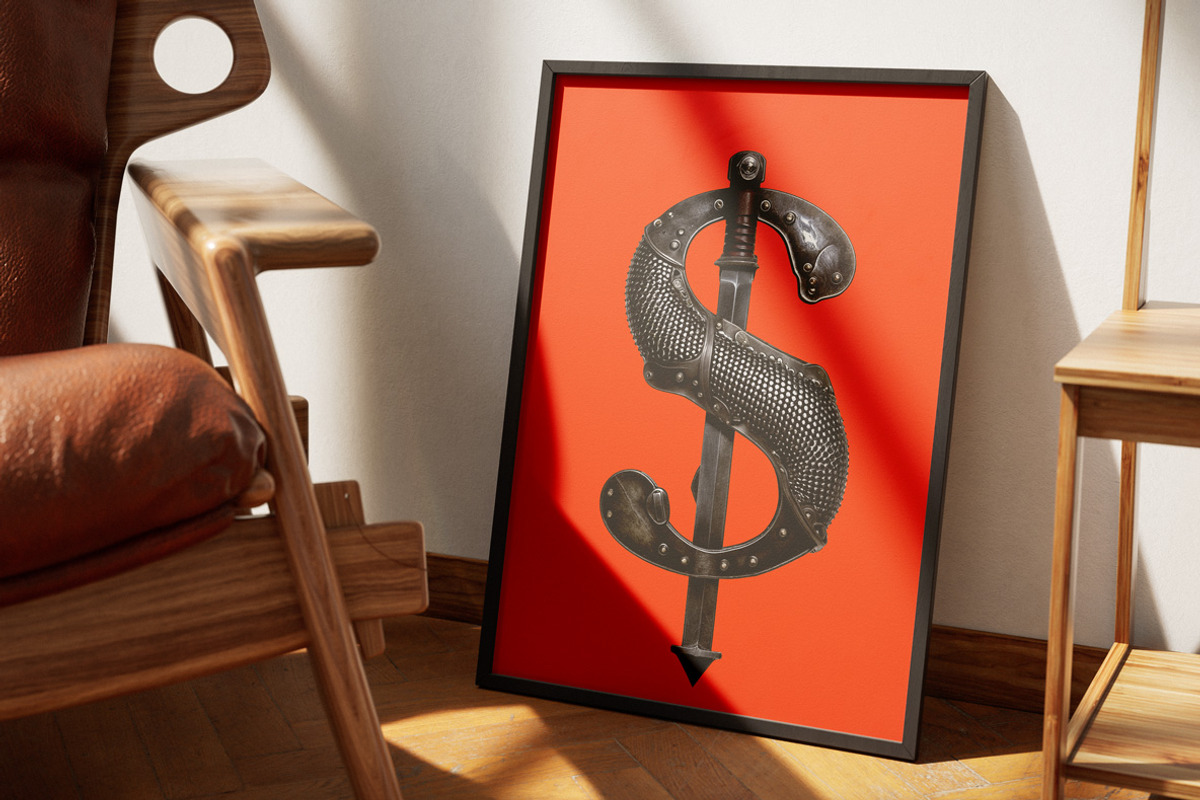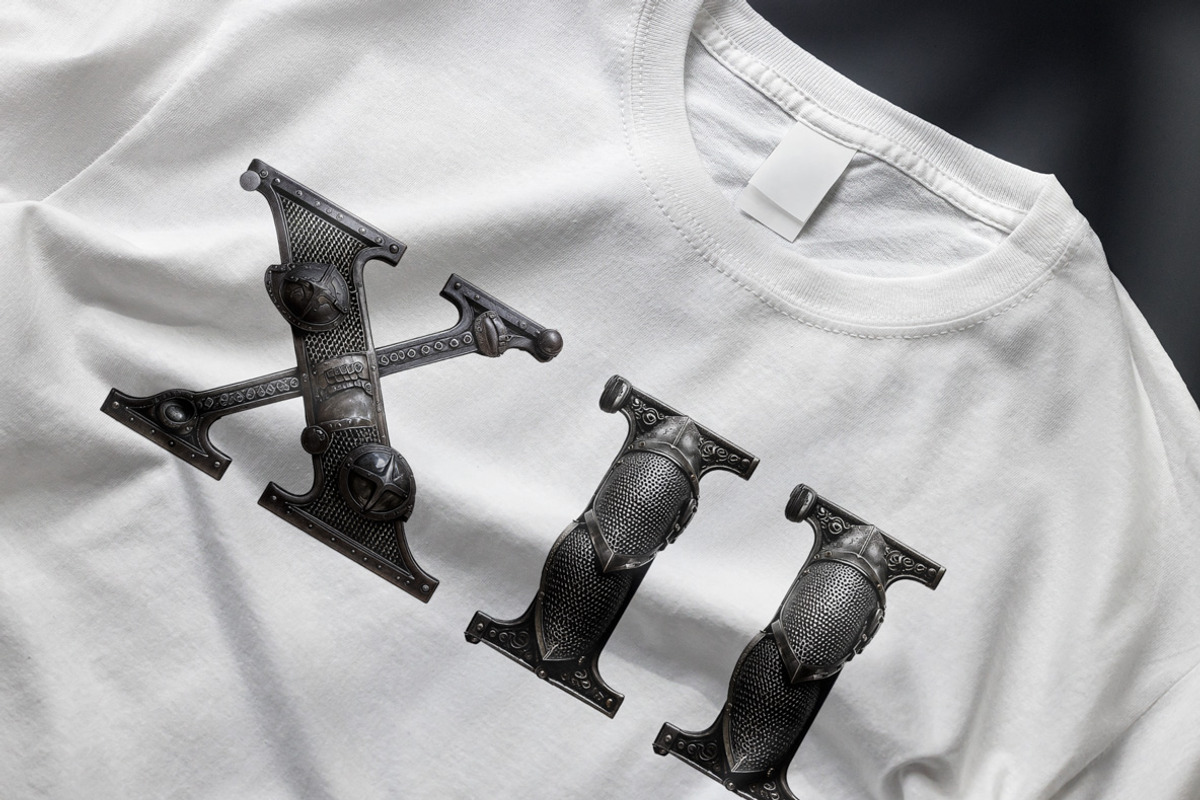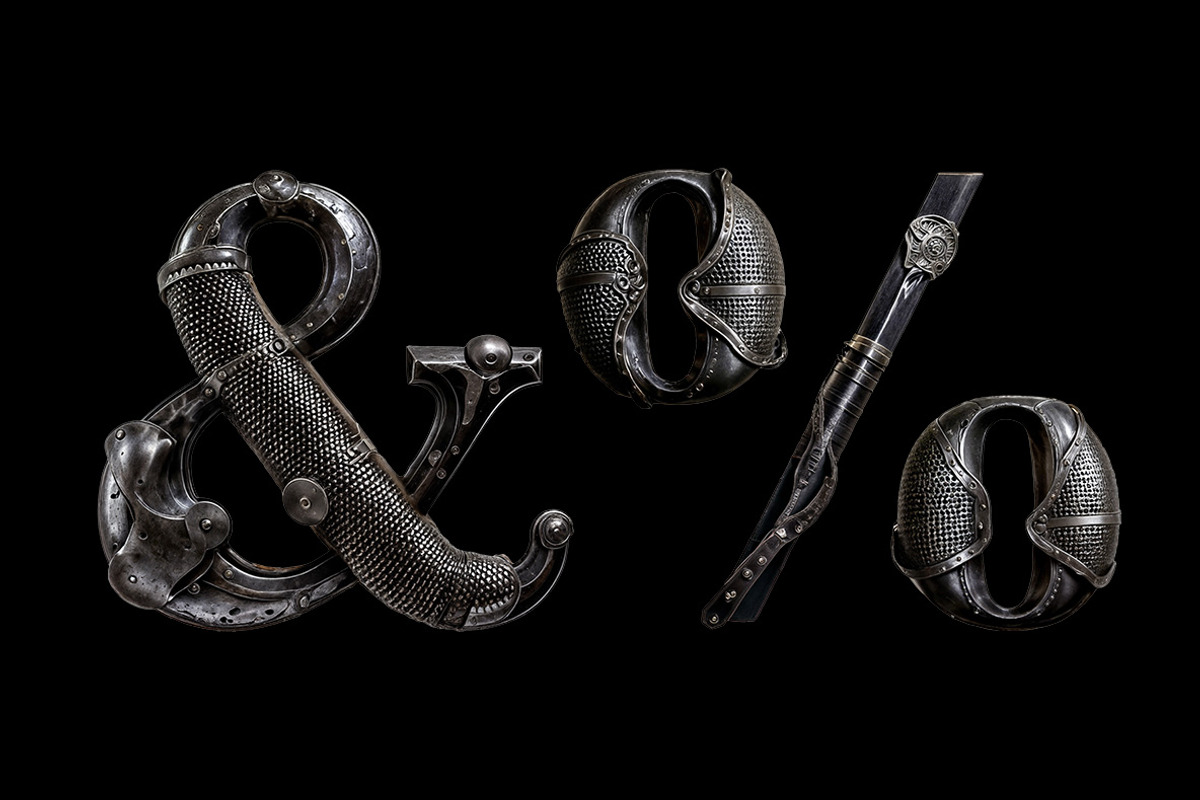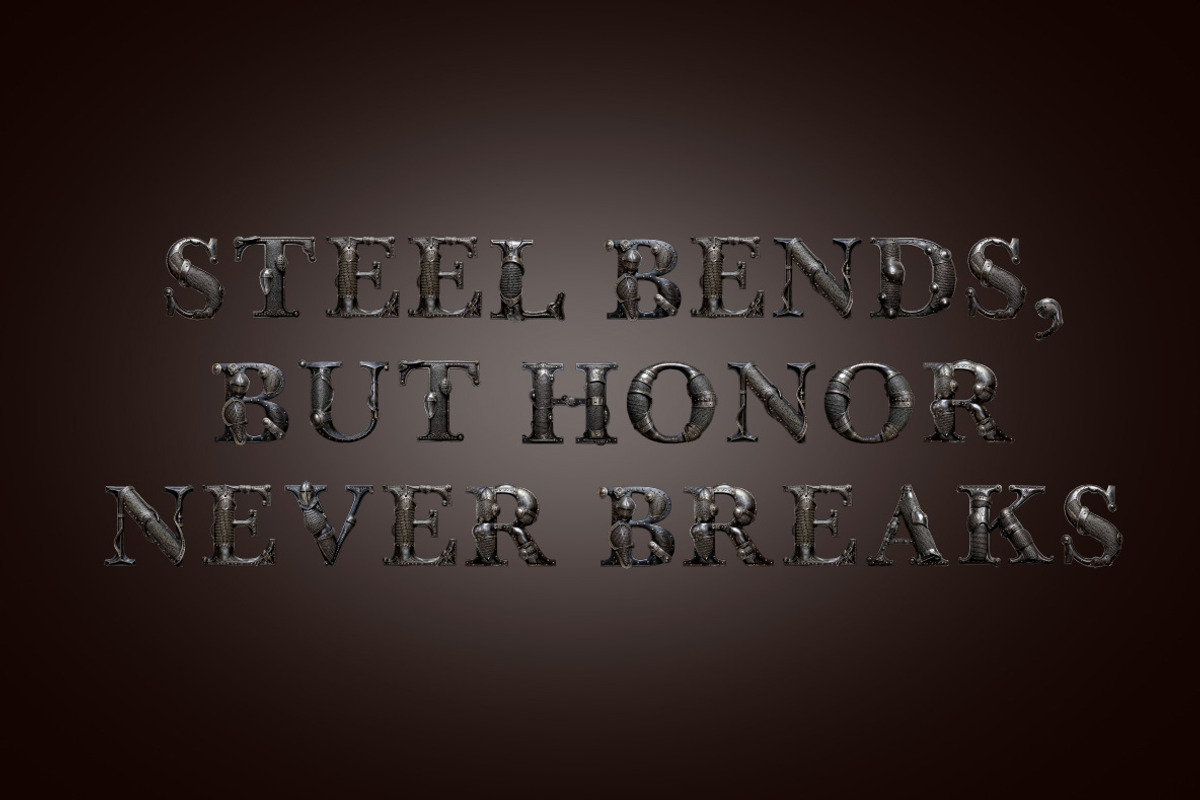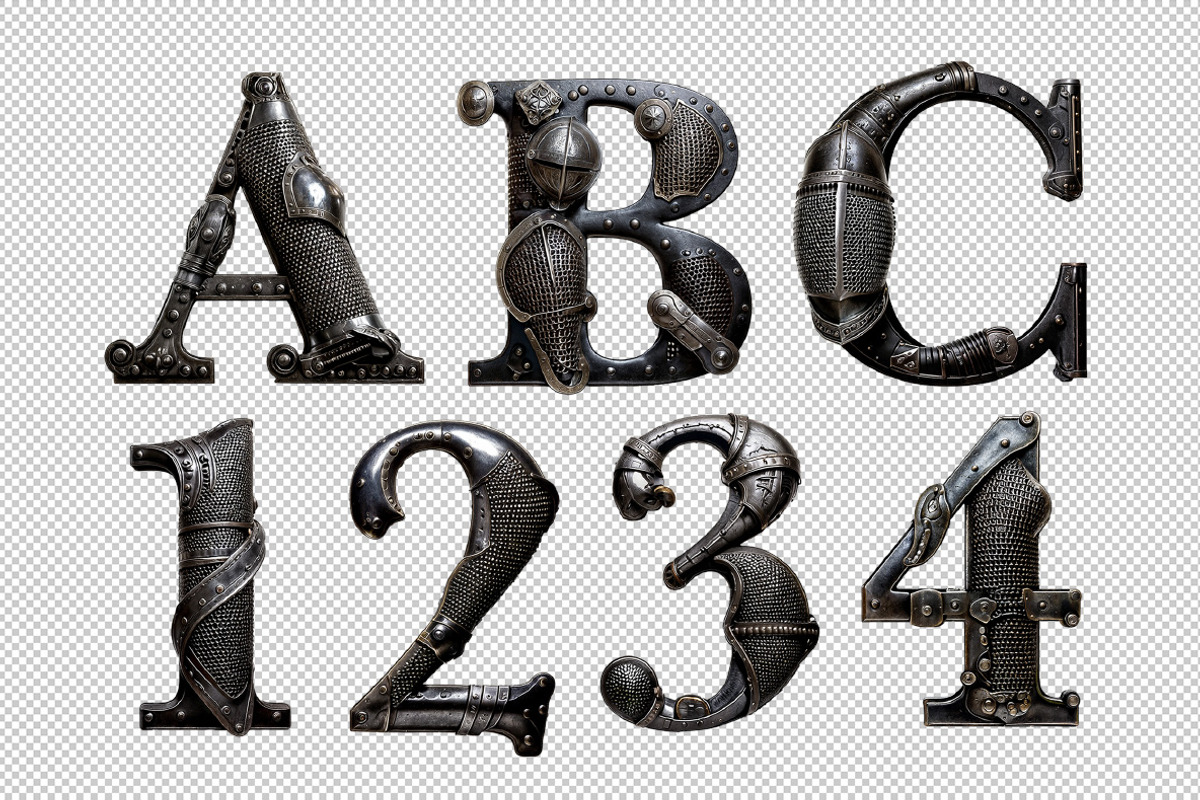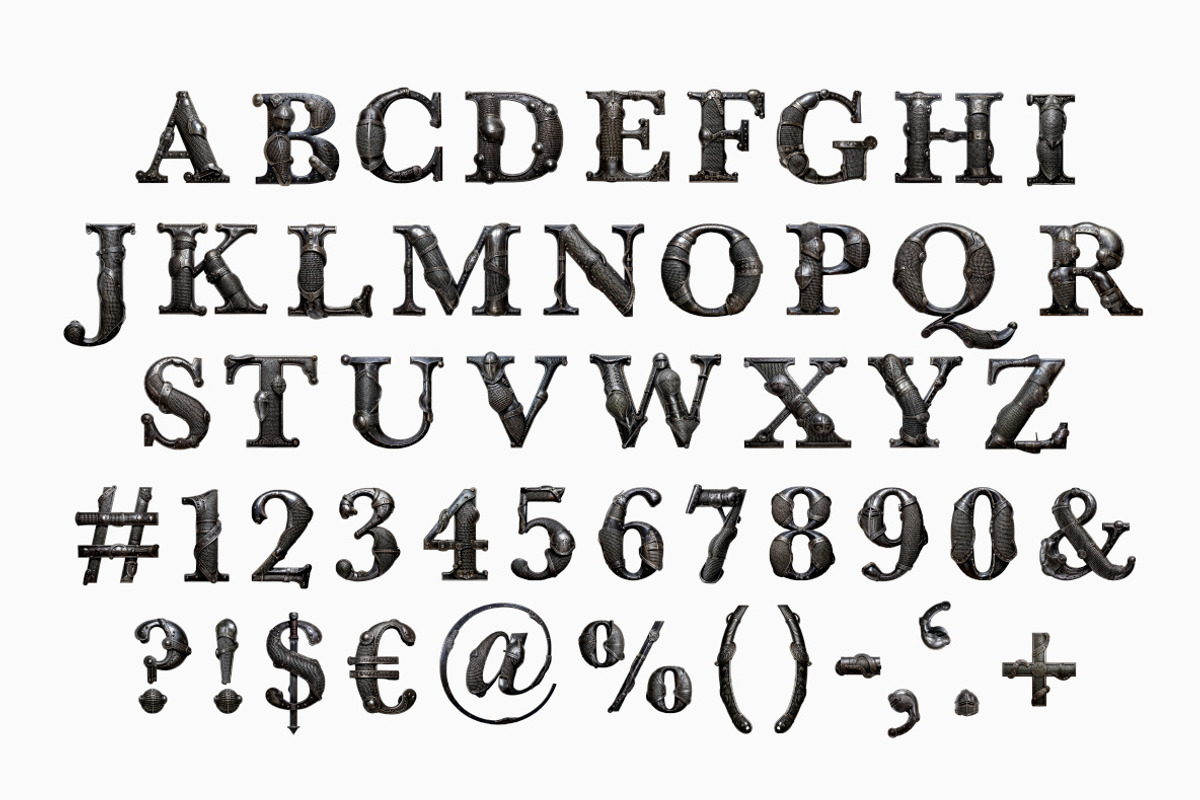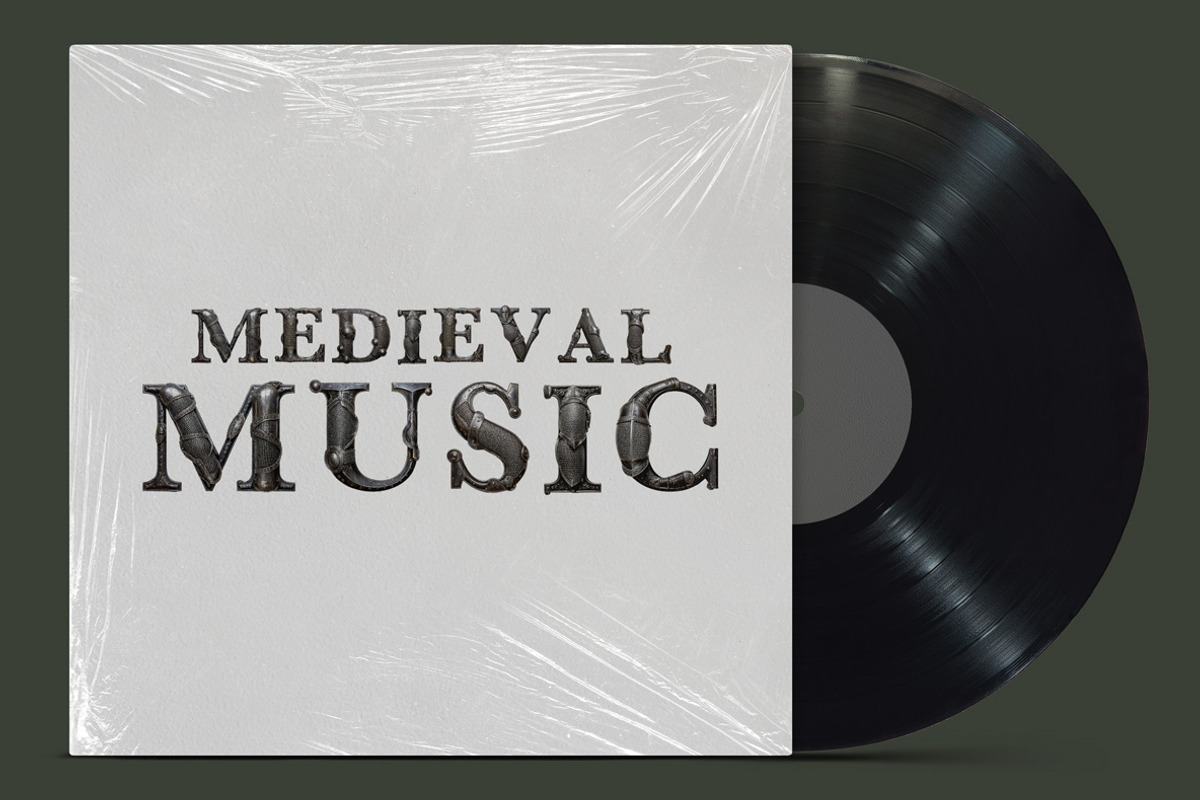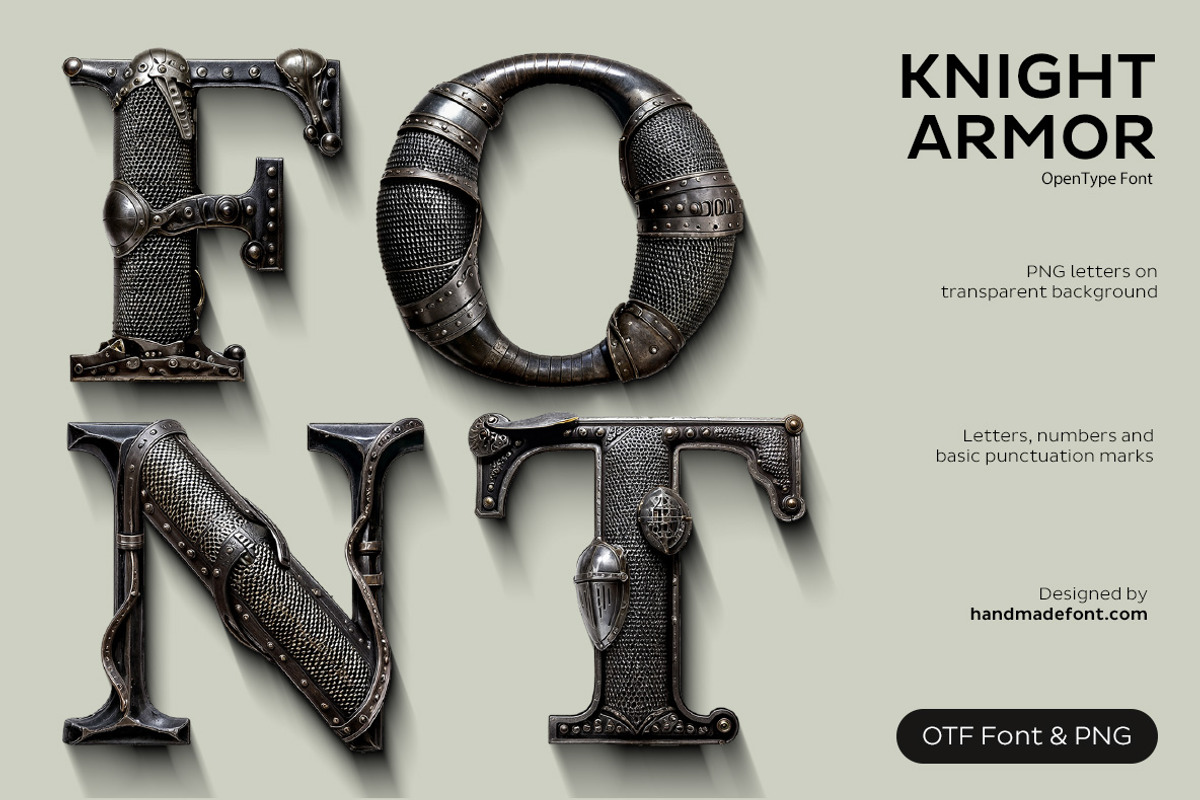
Knight Armor Font
Knight—bold, unyielding, and clad in steel! The Knight Armor Font isn’t just a typeface; it’s a battle-hardened warrior in the world of letters. Each character stands tall, forged from dark metal, riveted like a seasoned warhorse’s plate armor. Chainmail loops through curves, while helmets and shoulder guards reinforce its indomitable spirit. This is not just typography—it’s a battlefield of chivalry and medieval might, where every A swings a sword, every B carries a shield, and every Z slashes like a lance in full charge. Whether crafting a royal decree or challenging a rival to a duel, this knight-inspired font fights for glory—one letter at a time. Arm your words. Unleash the battle. ⚔️
A high definition OpenType Font. Contains uppercase characters, numerals and basic punctuation. (Draw height roughly 800 pixels). All letters and glyphs that comprises this font you can see on the preview.